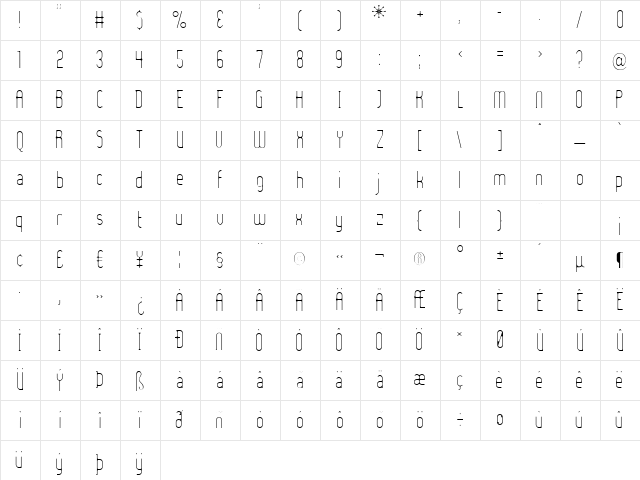
Lady Ice - Extra Light Regular Free Font
Lady Ice - Extra Light Regular
Designer: Graham Meade, CybaPee & Apostrophe
Design Context for Lady Ice - Extra Light
Lady Ice - Extra Light is a composed and adaptable typeface that performs quietly and consistently across a wide range of design contexts. Its slender proportions lend an understated elegance to any composition.